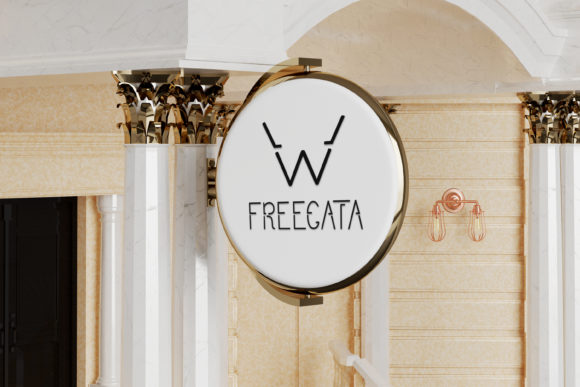
Introducing Freegata Font: Elevate Your Designs with a Cool, Geometric Style
Are you tired of using the same old fonts in your designs? Look no further than Freegata Font, a cool, geometric styled display font that’s incredibly versatile and sure to take your creations to the next level. In this article, we’ll dive into the world of Freegata Font, exploring its features, benefits, and uses, and show you how it can breathe new life into your designs.
The World of Freegata Font
Freegata Font is a modern, geometric styled display font that’s perfect for designers and crafters looking to add a touch of sophistication and elegance to their work. Its clean lines, precise curves, and cleverly crafted details make it a standout in the world of typography. Whether you’re working on a logo, branding project, or simply looking to add some flair to your social media graphics, Freegata Font is the perfect choice.
Key Features of Freegata Font
- Geometric Style: Freegata Font boasts a unique geometric style that’s both modern and timeless. Its precise lines and curves create a sense of balance and harmony, making it perfect for designs that require a touch of sophistication.
- Incredibly Versatile: Freegata Font is designed to be versatile, making it suitable for a wide range of designs, from logos and branding to social media graphics and more.
- Easy to Read: Despite its geometric style, Freegata Font is incredibly easy to read, making it perfect for designs that require a clear and concise message.
- Highly Customizable: Freegata Font comes with a range of customization options, allowing you to tailor it to your specific design needs.
Benefits of Using Freegata Font
So, why should you choose Freegata Font for your designs? Here are just a few benefits of using this amazing font:
- Elevate Your Designs: Freegata Font has the power to elevate your designs to new heights, adding a touch of sophistication and elegance that’s sure to impress.
- Stand Out from the Crowd: With its unique geometric style, Freegata Font is sure to make your designs stand out from the crowd, grabbing attention and leaving a lasting impression.
- Save Time: Freegata Font is incredibly easy to use, saving you time and effort in the design process.
- Perfect for Branding: Freegata Font is perfect for branding projects, providing a consistent and professional look that’s sure to build trust with your audience.
Uses of Freegata Font
So, what can you use Freegata Font for? The possibilities are endless! Here are just a few ideas to get you started:
- Logos and Branding: Freegata Font is perfect for logos and branding projects, providing a professional and consistent look that’s sure to build trust with your audience.
- Social Media Graphics: Add a touch of sophistication to your social media graphics with Freegata Font, making your posts stand out from the crowd.
- Web Design: Freegata Font is perfect for web design projects, providing a clean and professional look that’s sure to enhance user experience.
- Print Design: Freegata Font is also perfect for print design projects, such as brochures, flyers, and business cards.
In conclusion, Freegata Font is a cool, geometric styled display font that’s incredibly versatile and sure to take your designs to the next level. With its clean lines, precise curves, and cleverly crafted details, Freegata Font is the perfect choice for designers and crafters looking to add a touch of sophistication and elegance to their work. So why wait? Add Freegata Font to your favorite creative ideas and notice how it makes them come alive!